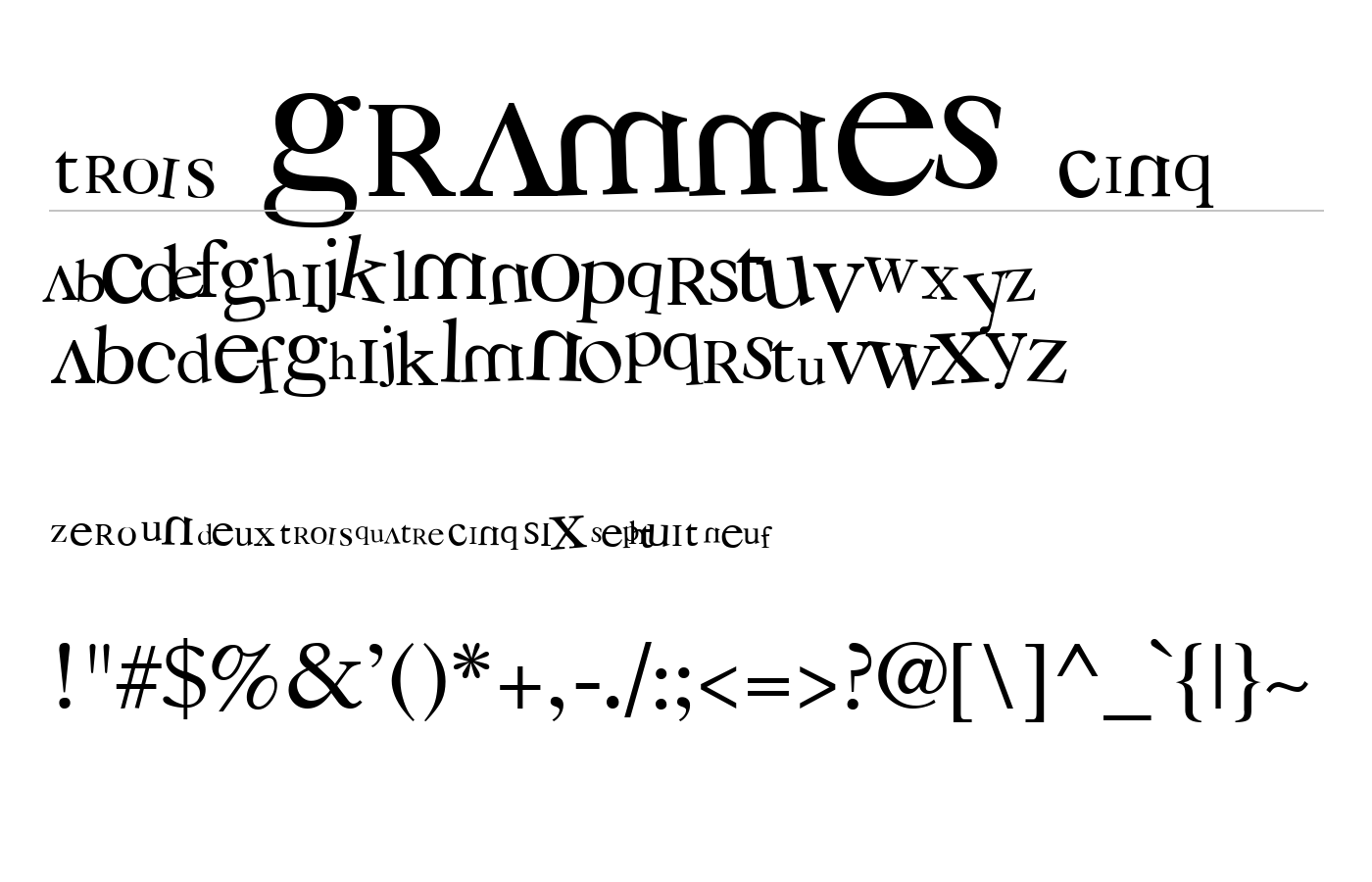
3 grammes 5 is a distinctive serif font with an artistic twist, combining high contrast strokes and elegant, bracketed serifs with playful, unexpected shapes and angles. Its unique letterforms, such as the pointed A and curved g, give it a quirky yet refined personality, making it ideal for creative editorial projects, fashion branding, and striking headlines where a blend of sophistication and originality is desired. This font stands out with its eye-catching style that balances classic serif beauty with avant-garde flair.
3 grammes 5 Font